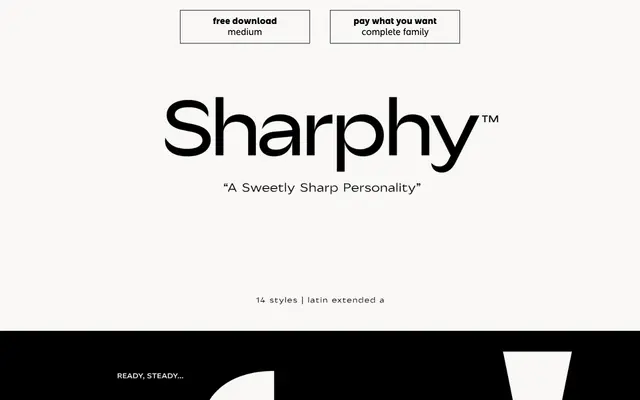
Sharphy
Sharphy specimen from atipo foundry
A humanist sans from atipo with sharp terminals, fourteen styles across seven weights with matching italics.
Sharphy is a humanist sans from atipo foundry built around sharply cut, slightly tapered terminals that give the letterforms a crisp finish at large sizes while staying readable in body copy. The family runs across seven weights from Thin to Bold, each with a true italic, for fourteen styles in total. Suits brand systems, app interfaces and editorial work that wants warmth without softness, sitting between traditional humanist sans like Gill or Frutiger and the sharper contemporary cuts that have replaced them in identity work.
A humanist sans with sharp, slightly tapered terminals across seven weights from Thin to Bold, each with a true italic.